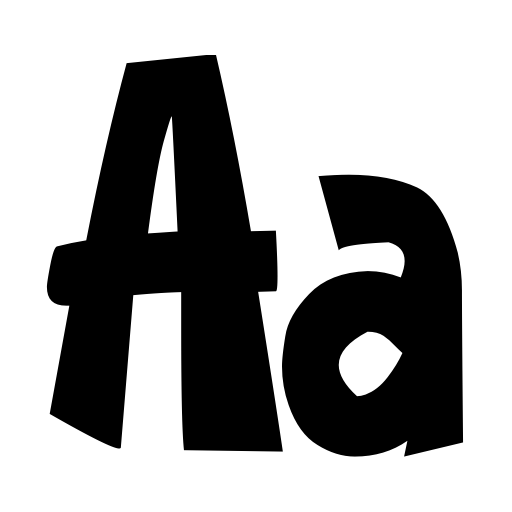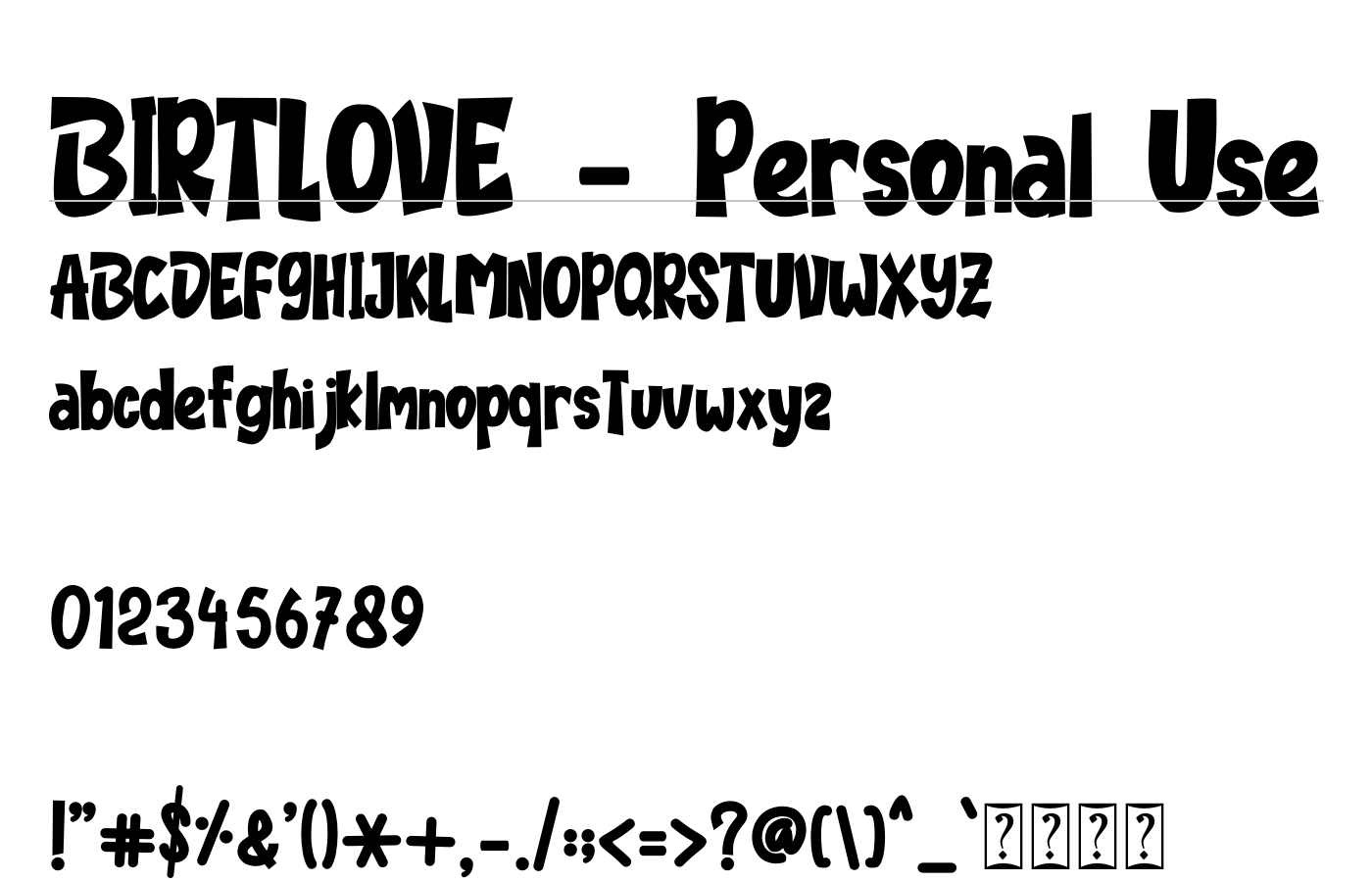
BIRTLOVE is a playful and bold sans serif font with a hand-drawn, slightly irregular style that brings a fun, casual energy to any design. Its chunky, uneven letterforms and lively curves create a friendly and approachable feel, making it perfect for children's projects, informal branding, posters, and creative headlines that need a vibrant, eye-catching look. This font shines best where personality and a touch of whimsy are desired rather than formal or highly professional contexts.
BIRTLOVE - Personal Use Font
About BIRTLOVE - Personal Use Font